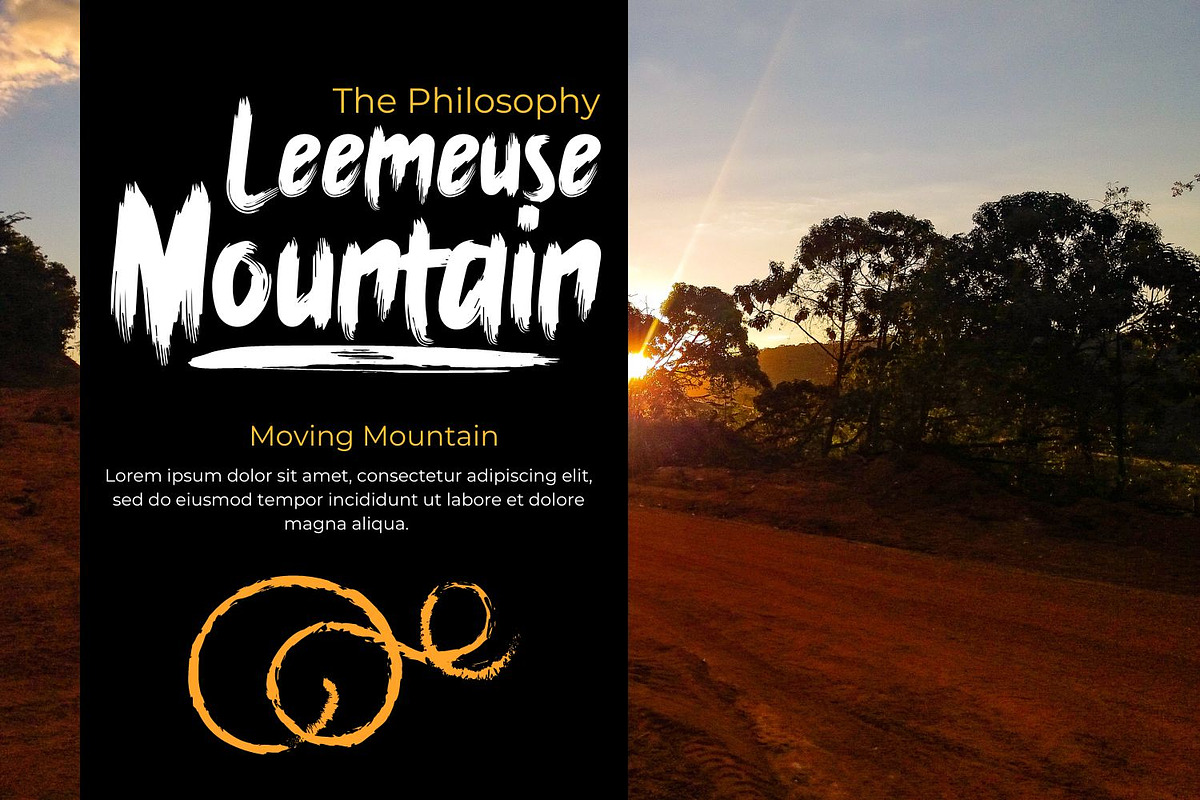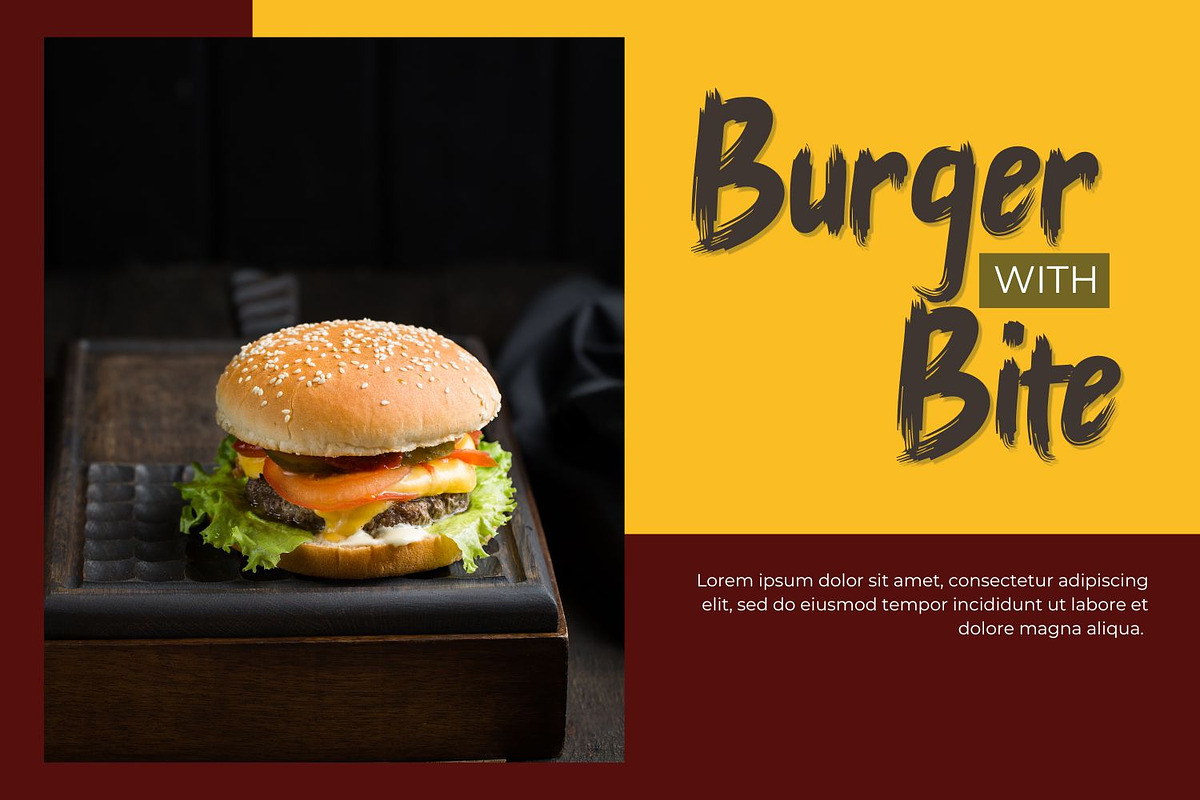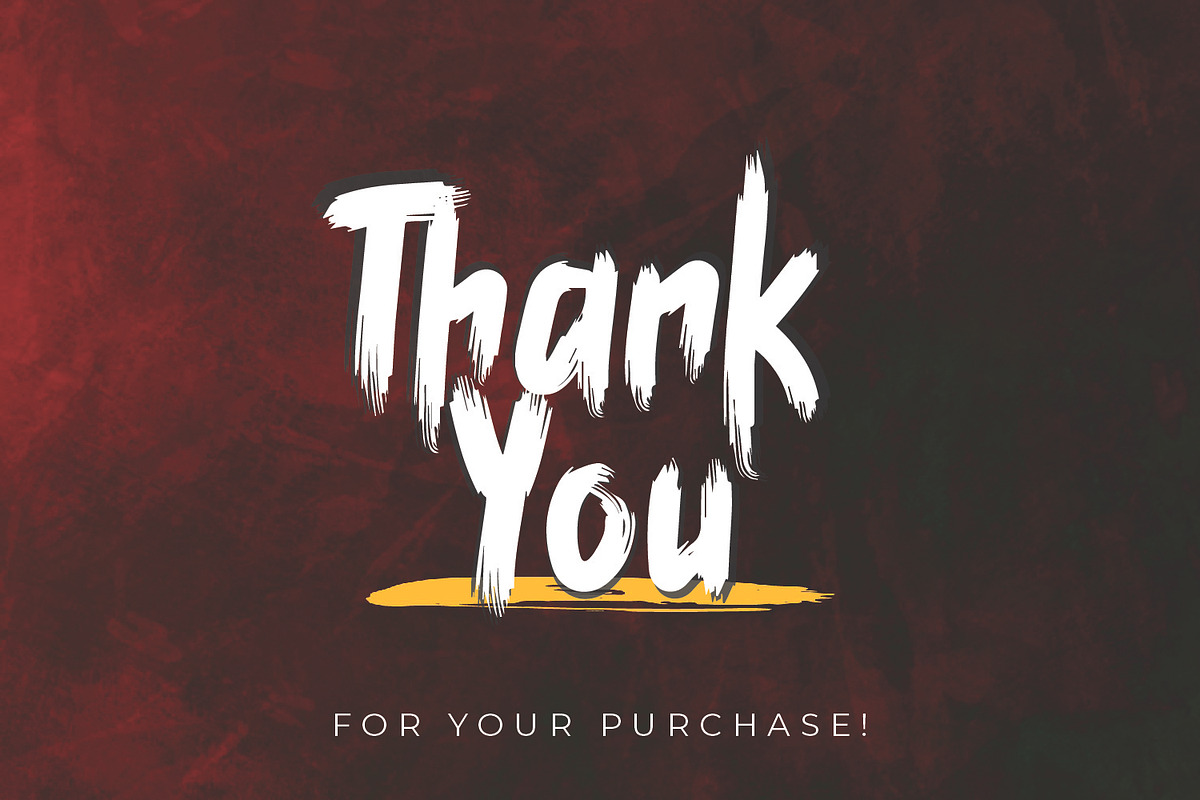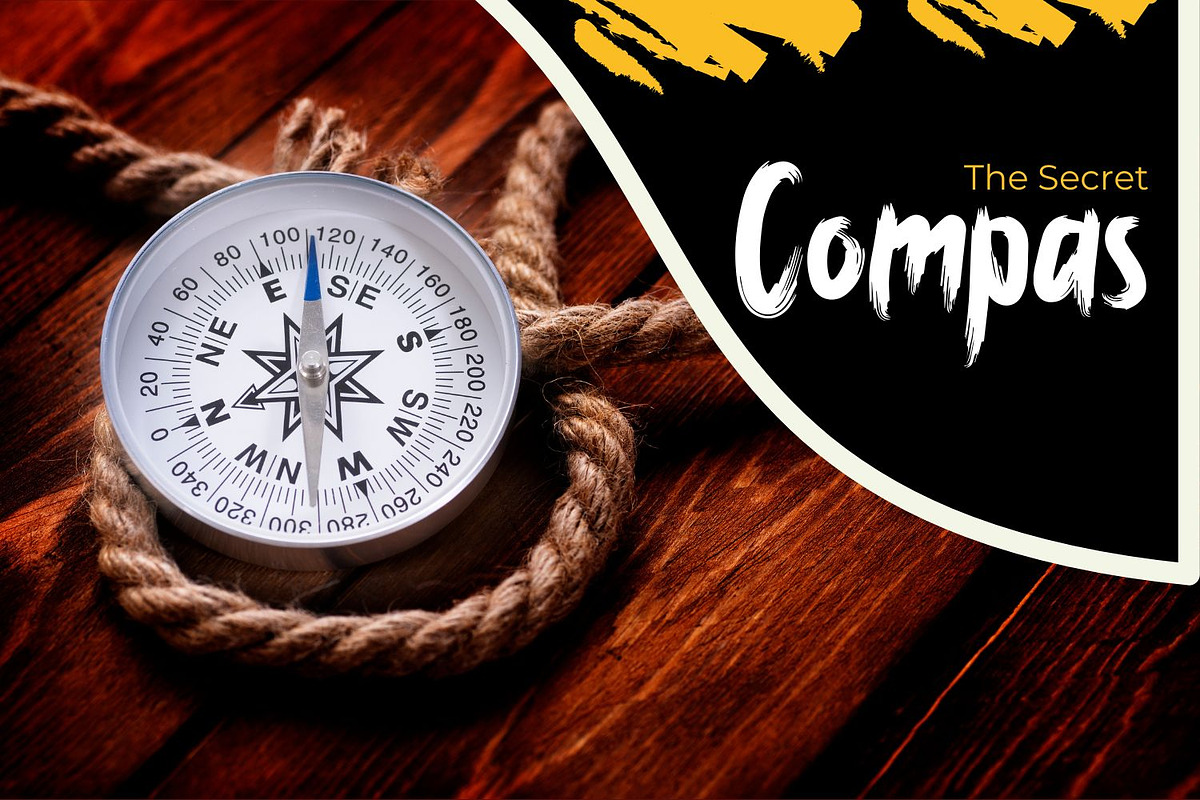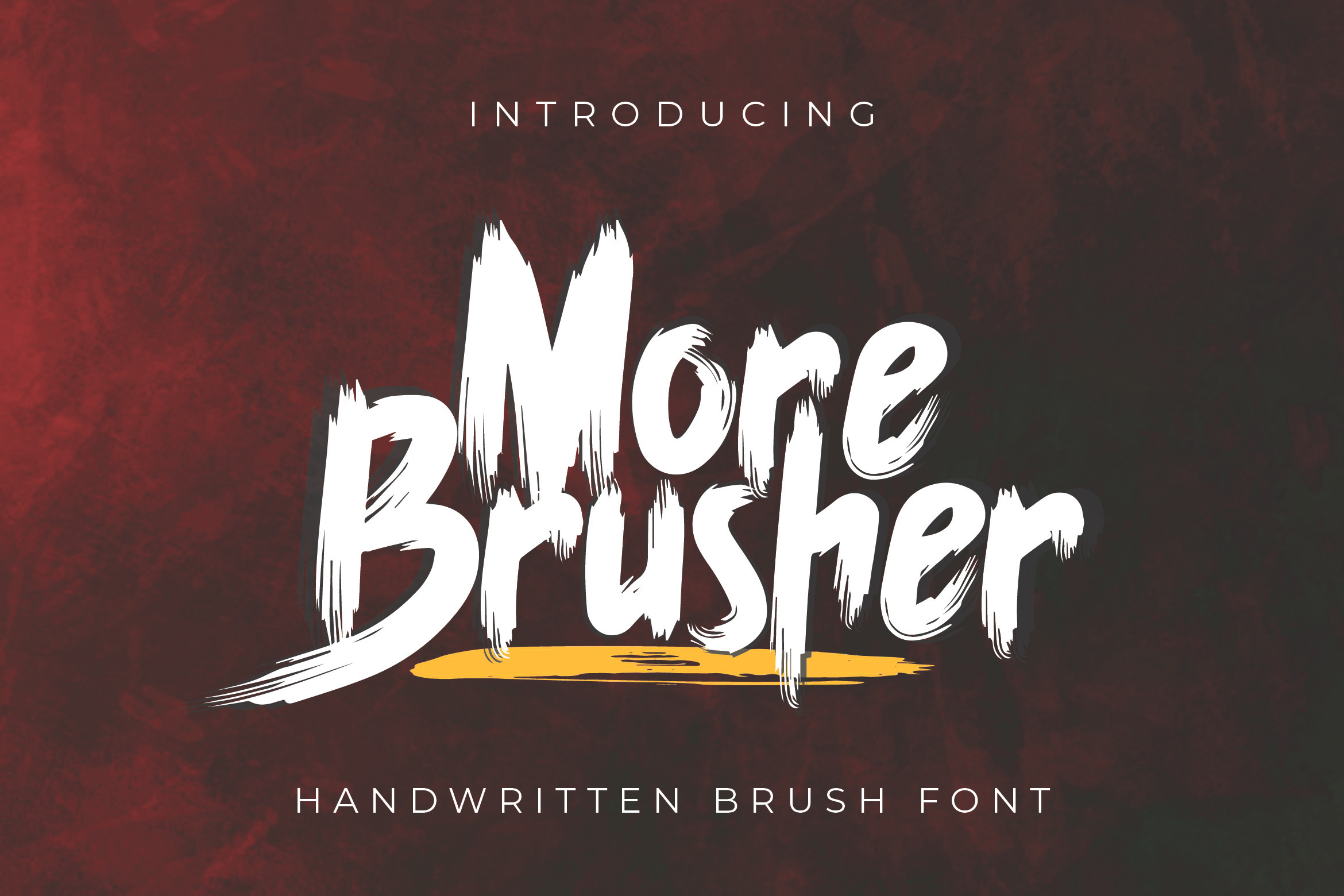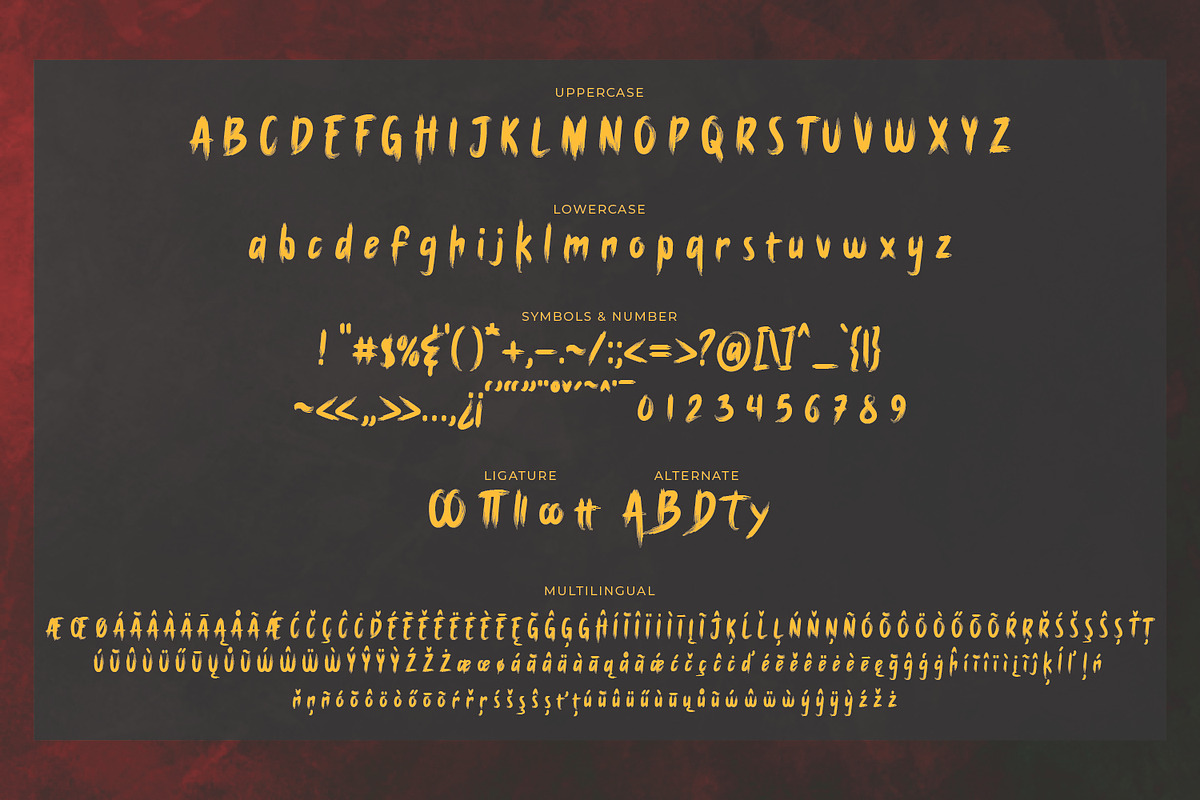
More Brusher Handwritten Font
More Brusher - Handwritten Brush is a handwritten brush font with a unique, quirky and versatile style. It is perfect to use in all your design projects, be it logos, signatures, labels, packaging designs, quotes, heading titles, movie titles and much more. No matter the setting, More Brusher will make your text stand out!
- Tons of glyphs
- Alternates and Ligatures
- Punctional
- Fonts include Multilingual Support